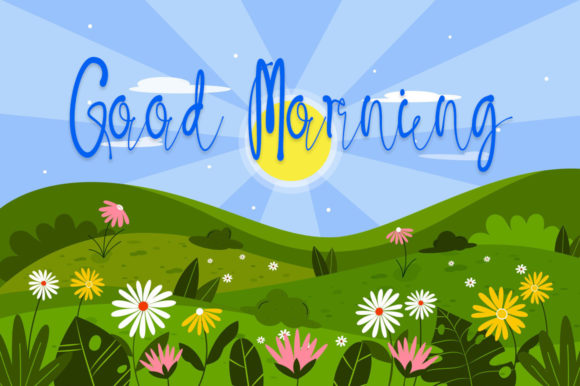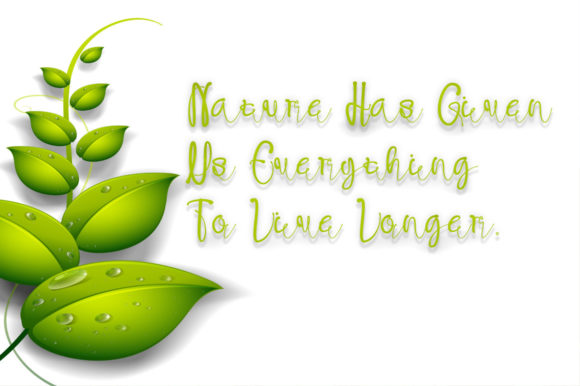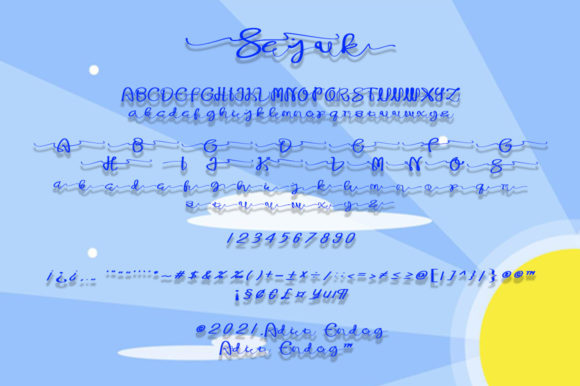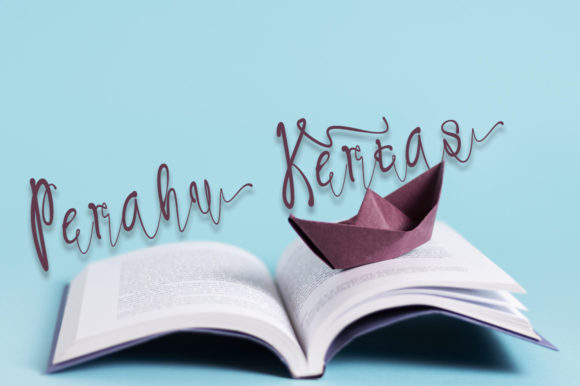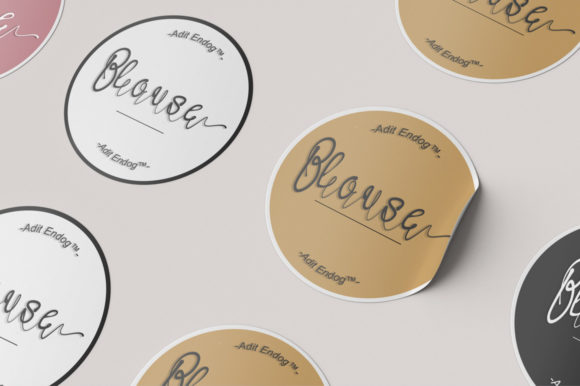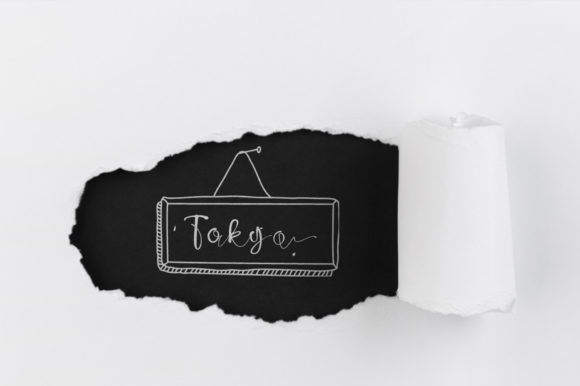
Introduction to Sejuk Font
Sejuk is a detailed and sweet calligraphy typeface with characters that dance along the baseline.
Key Features of Sejuk Font